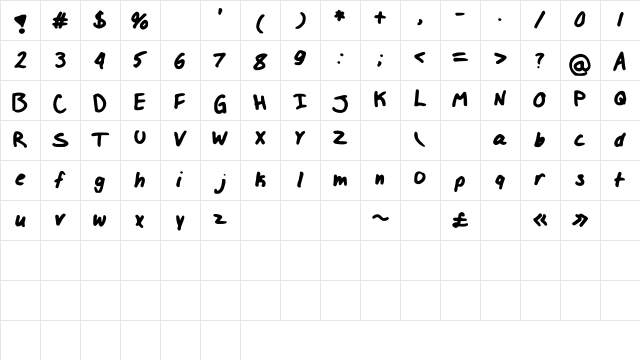
Complete IZZYLOLFONT Medium glyph index. Displaying only characters natively supported by IZZYLOLFONT Medium font.
IZZYLOLFONT is a composed and adaptable typeface that performs quietly and consistently across a wide range of design contexts.